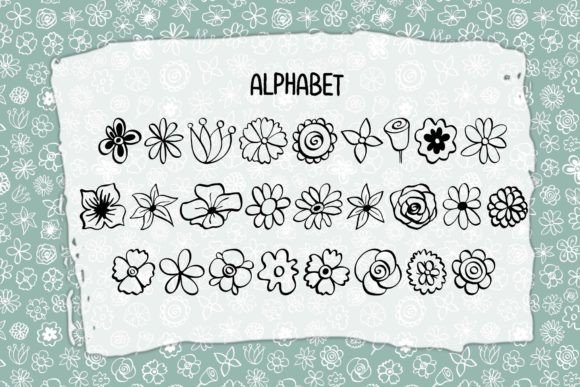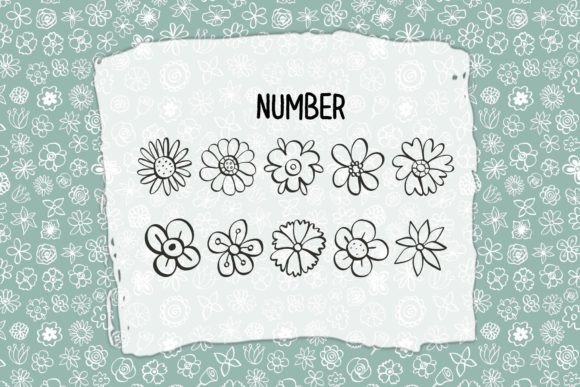
Introducing Happy Flowers Font: The Perfect Addition to Your Design Collection
Are you tired of using the same old fonts in your designs? Look no further! Happy Flowers Font is a fun and quirky dingbats font that’s sure to add a touch of personality to your projects. In this article, we’ll dive into the features and benefits of Happy Flowers Font, and explore how it can be used in a variety of creative applications.
What is Happy Flowers Font?
Happy Flowers Font is a unique and playful dingbats font that’s perfect for adding a touch of whimsy to your designs. The font features a collection of colorful and fun flower illustrations that can be used to create eye-catching logos, wall art, signs, cards, and more.
Whether you’re a designer, crafter, or DIY enthusiast, Happy Flowers Font is a versatile and easy-to-use font that’s sure to inspire your creativity. With its wide range of uses, you can create everything from custom t-shirts and art prints to coloring pages and party decorations.
Key Features of Happy Flowers Font
- Fun and quirky design: Happy Flowers Font features a collection of colorful and playful flower illustrations that are sure to add a touch of personality to your designs.
- Versatile uses: This font is perfect for a wide range of creative applications, including logos, wall art, signs, cards, art prints, t-shirts, coloring pages, and more.
- Easy to use: Happy Flowers Font is a dingbats font, which means that it’s easy to use and customize. Simply type in the text and watch as the font comes to life with colorful and fun illustrations.
- Scalable design: Happy Flowers Font is designed to be scalable, which means that it can be used in a variety of sizes and resolutions without losing its quality.
Creative Applications of Happy Flowers Font
Happy Flowers Font is a versatile font that can be used in a wide range of creative applications. Here are a few ideas to get you started:
- Logos and branding: Use Happy Flowers Font to create a fun and memorable logo for your business or brand.
- Wall art and decor: Create eye-catching wall art and decor using Happy Flowers Font. Perfect for nurseries, kids’ rooms, and playrooms.
- Signs and banners: Use Happy Flowers Font to create colorful and fun signs and banners for parties, events, and more.
- Cards and invitations: Add a touch of personality to your cards and invitations with Happy Flowers Font.
- Art prints and posters: Create stunning art prints and posters using Happy Flowers Font. Perfect for home decor, gifts, and more.
- T-shirts and apparel: Use Happy Flowers Font to create custom t-shirts and apparel for kids and adults alike.
- Coloring pages and activity sheets: Create fun and interactive coloring pages and activity sheets using Happy Flowers Font.
Tips and Tricks for Using Happy Flowers Font
Here are a few tips and tricks to help you get the most out of Happy Flowers Font:
- Experiment with colors: Happy Flowers Font comes with a range of colors, but don’t be afraid to experiment with different color combinations to create unique and eye-catching designs.
- Mix and match: Combine Happy Flowers Font with other fonts and graphics to create unique and interesting designs.
- Use it sparingly: Happy Flowers Font is a bold and playful font, so use it sparingly to avoid overwhelming your design.
| Author | DREAMs Soul G. |
Happy Flowers Font is a fun and versatile dingbats font that’s perfect for designers, crafters, and DIY enthusiasts. With its wide range of uses and easy-to-use design, it’s the perfect addition to your font collection. Whether you’re creating logos, wall art, signs, cards, or more, Happy Flowers Font is sure to add a touch of personality and whimsy to your designs. So why wait? Download Happy Flowers Font today and start creating!